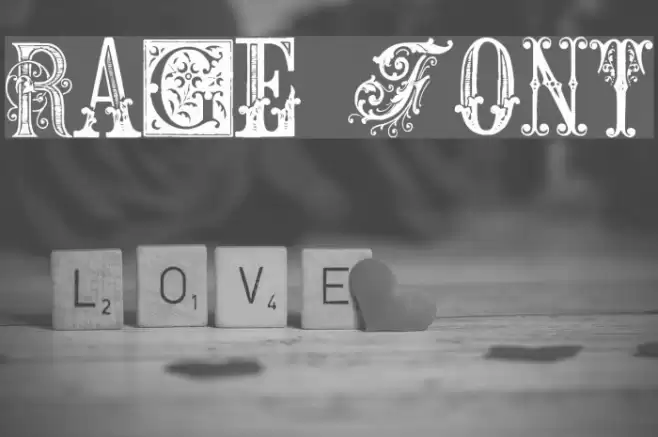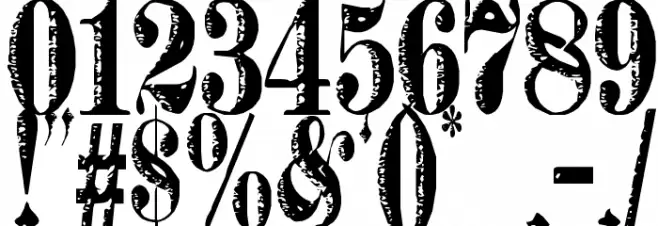
Rage Font
Rage Description
This font is a highly decorative and ornate typeface that features intricate detailing within each character. The uppercase letters are embellished with flourishes and elaborate patterns, giving them a vintage and artistic appearance. The numbers and special characters continue this theme, with each symbol uniquely styled to match the overall aesthetic. The font is bold and eye-catching, making it suitable for designs that require a strong visual impact. Its intricate design suggests a historical or classical influence, perfect for projects that aim to convey elegance and sophistication.
An ornate, decorative font with intricate detailing and a vintage aesthetic from Decorative fonts.
- Proposed Projects: Ideal for wedding invitations, vintage-themed posters, branding for luxury products, and decorative signage.
- Overall Style: Vintage